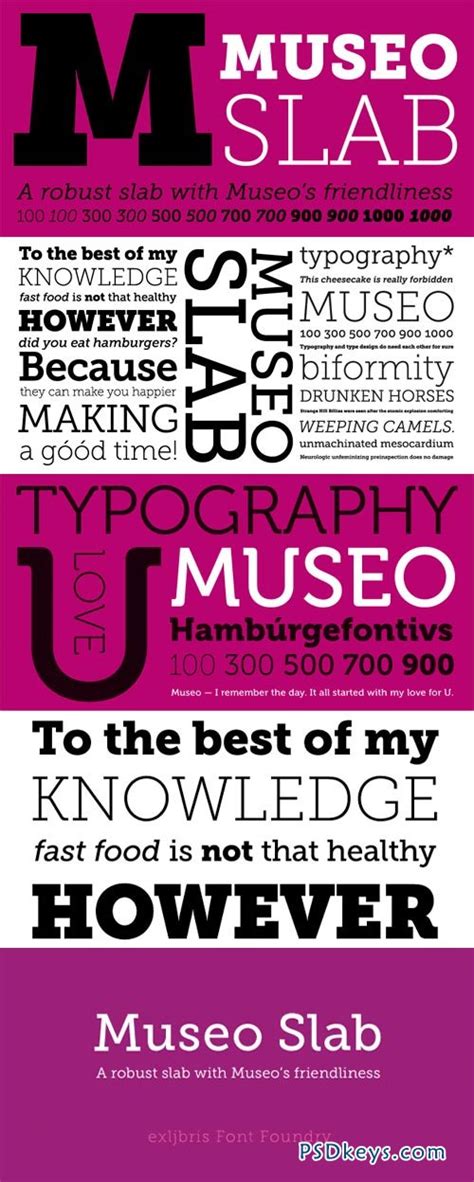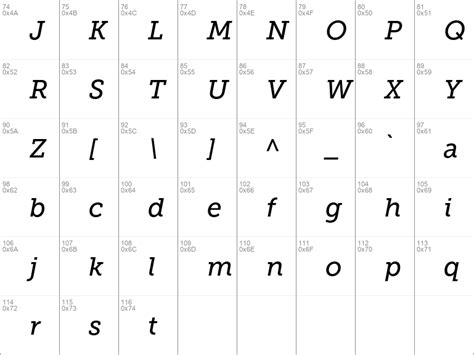
You can use the museo slab 500 to create. Museo slab is robust slab serif with museo's friendliness. Museo slab is a serif font. You have to select some fonts to get them. Museo slab 500 family consisting of 2 fonts.
Complete pack contains 2 font weights listed below: Nov 26, 2015 by free fonts. Museo slab is a slab serif font family. It is a perfect match for museo sans. This font was posted on 10 may 2015 and is called museo slab 500 font. I've tried to use museo fonts in my sites. It is a perfect match for museo sans. Download museo slab 500 font with 500 style.
When museo became a succes i researched some possibilities of other versions.
Museo slab is a slab serif font family. The story of museo sans in jos buivenga's words: When museo became a succes i researched some possibilities of other versions. Nov 26, 2015 by free fonts. It's a robust slab serif with museo's friendliness. Museo slab is robust slab serif with museo's friendliness. Each weight counts 455 glyphs. But i don't know how to use this in a site. The font is available in all formats (museo slab woff2, museo slab woff, museo slab ttf, museo slab eot) and applicable to the website, photoshop and any os. This font was posted on 10 may 2015 and is called museo slab 500 font. Despite the fact that the varieties of the letters are equivalent to those of museo, the blunt serifs of museo slab are a little bit for a longer period and therefore are frequently not rounded wherever they be part of the upstroke, but. Version 1.000 postscript font name: If it is any google fonts like 'roboto', then i can use by below code:
Due to its unique nature of design, vast language supports and extra features, it can be used for any purpose of designing. Museo slab is a slab serif font that supports a very wide range in languages and is a complete opentype typeface. It is a perfect match for museo sans. Museo slab is a slab serif font family. You can use these fonts to create custom styles. When museo became a succes i researched some possibilities of other versions. Museo slab 500 was designed by jos buivenga. This font was posted on 10 may 2015 and is called museo slab 500 font.
Museo slab is a robust slab serif with museo's friendliness.
Museo slab w01 100 fonts free download. When museo became a succes i researched some possibilities of other versions. Museo slab is a robust slab serif with museo's friendliness. Museo slab font is splendid font to be used by any designer to accomplish their upcoming projects. This font was posted on 10 may 2015 and is called museo slab 500 font. It is a perfect match for museo sans. Designed by jos buivenga, the museo slab font family is a perfect match for museo sans. It goes well with museo sans, open sans, noto sans, old standard, proxima nova, lucida grande, entypo social, entypo logo, museo and futura pt. It is a perfect match for museo sans. Designed by jos buivenga, the museo slab font family is a perfect match for museo sans. Complete pack contains 2 font weights listed below: If it is any google fonts like 'roboto', then i can use by below code: You can use these fonts to create custom styles.
But i don't know how to use this in a site. Version 1.000 postscript font name: Museo slab font is splendid font to be used by any designer to accomplish their upcoming projects. Museo slab is a slab serif font family. Museo slab is robust slab serif with museo's friendliness.
Museo slab is robust slab serif with museo's friendliness. 2009museo slab 500 italicversion 1. Designed by jos buivenga, the museo slab font family is a perfect match for museo sans. Museo slab free font family is robust slab serif with museo's friendliness. It's a robust slab serif with museo's friendliness. Please, talk with the author for commercial use or for any support. Due to its unique nature of design, vast language supports and extra features, it can be used for any purpose of designing. The author works at company jos museo slab 500 is free for personal use only.
Museo slab font is splendid font to be used by any designer to accomplish their upcoming projects. Dafont free is a collaboration of free high quality fonts including basic, script, handmade, calligraphy, fancy, display, gothic and more. The author works at company jos museo slab 500 is free for personal use only. The story of museo sans in jos buivenga's words: Complete pack contains 2 font weights listed below: You can use the museo slab 500 to create. Test museo slab font family now use this extremely handy tool to test the font appearance for free. Enter you text or numbers into a panel below. It is a perfect match for museo sans. Please, talk with the author for commercial use or for any support. Museo slab 300 copyright (c) 2009 by jos buivenga. Museo slab is robust slab serif with museo's friendliness. Museo slab font subfamily identification: